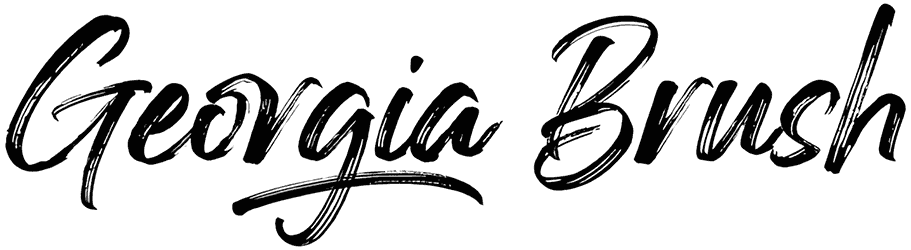
Georgia Brush Font
Your customers will be thunderstruck by seeing Georgia Brush for the first time. This beach script font can bewilder them with its sincerity.
As their eyes are up and down following its delicate flow, they will fall in love with your posters, business cards, billboards, logos, branding, and magazines. This brush font can be ideal for adding a dynamic, dramatic, and artistic touch to any kind of artwork.